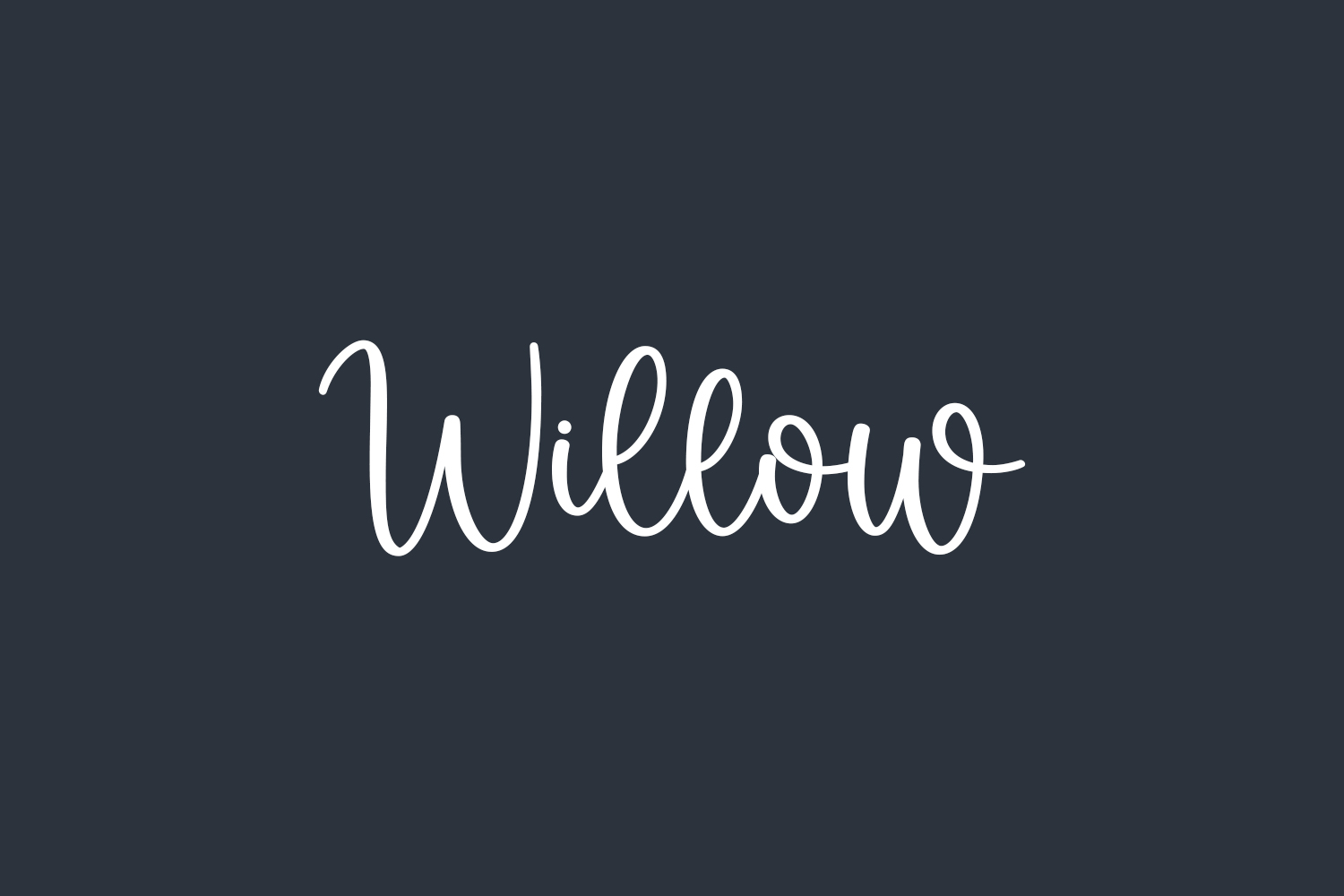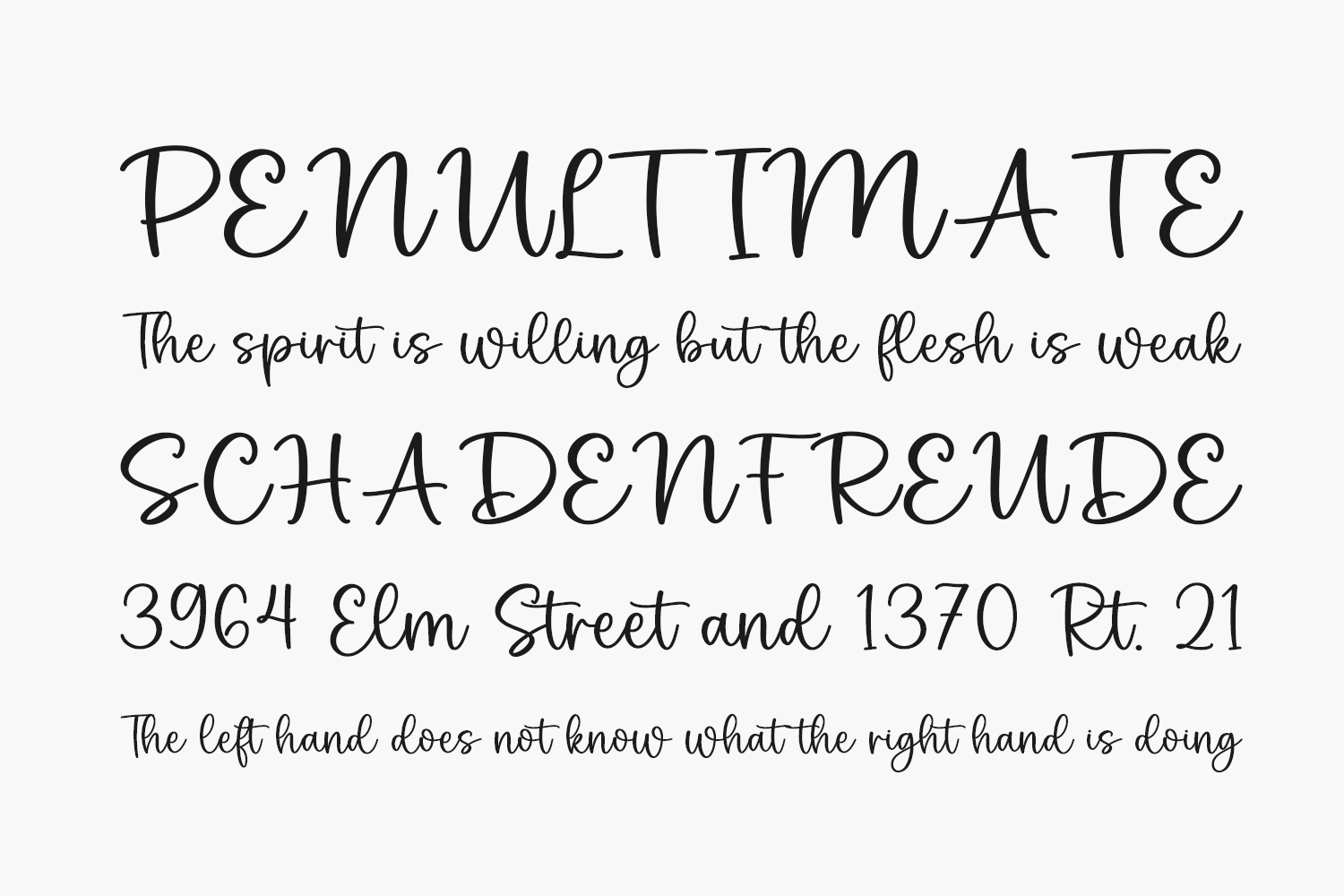
Willow Free Font epitomizes delicacy, elegance, and graceful flow in its handwritten style. With its meticulously crafted characters, this font seamlessly complements a diverse range of design projects. Download the font for free if you need it for personal use or purchase the full version for commercial use.